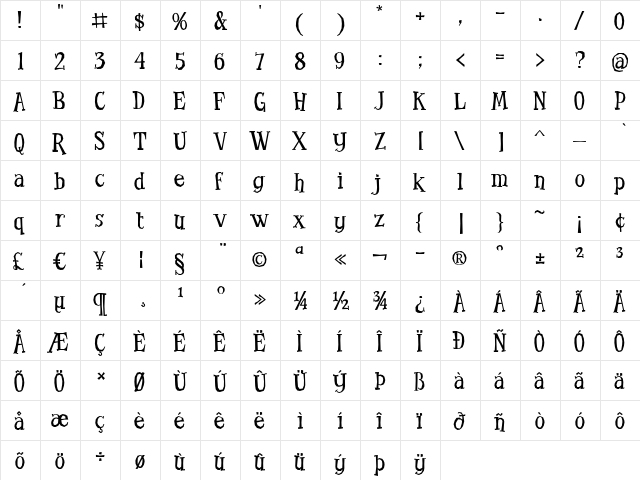
Benderville Regular
Design Context for Benderville Typeface
Benderville is a composed and adaptable typeface that performs quietly and consistently across a wide range of design contexts.